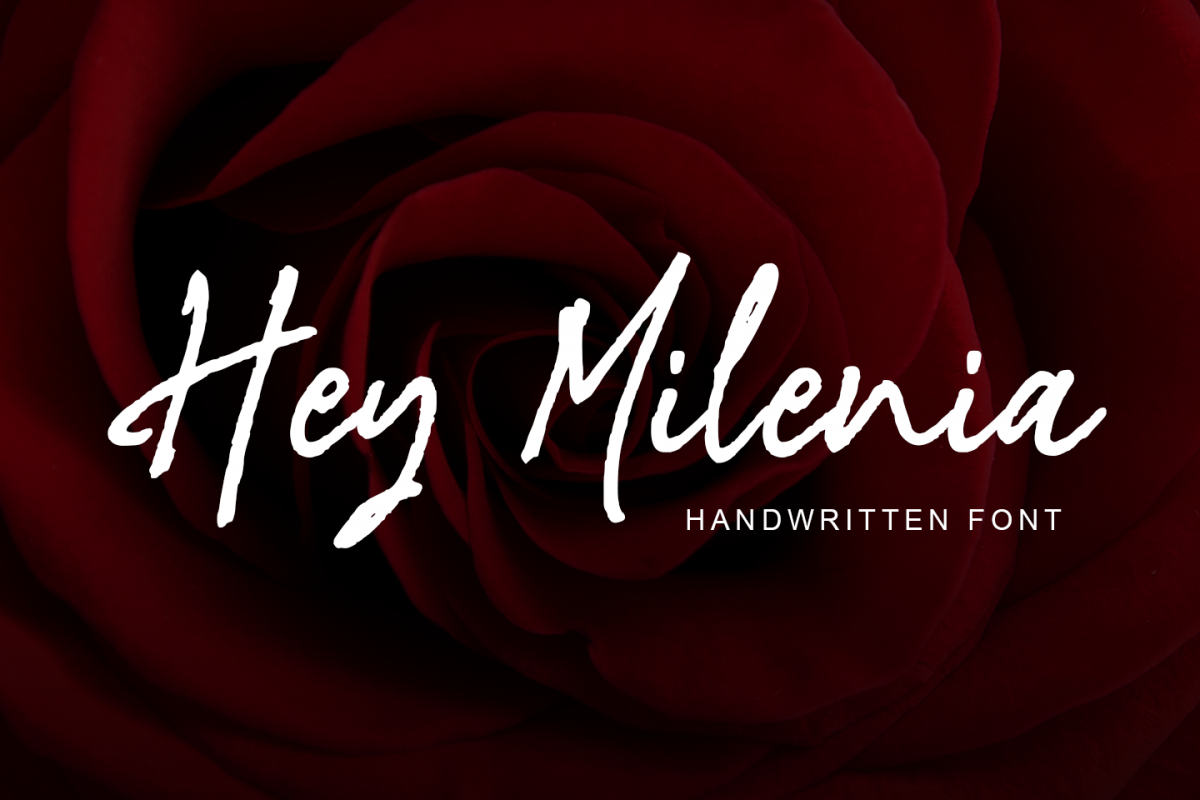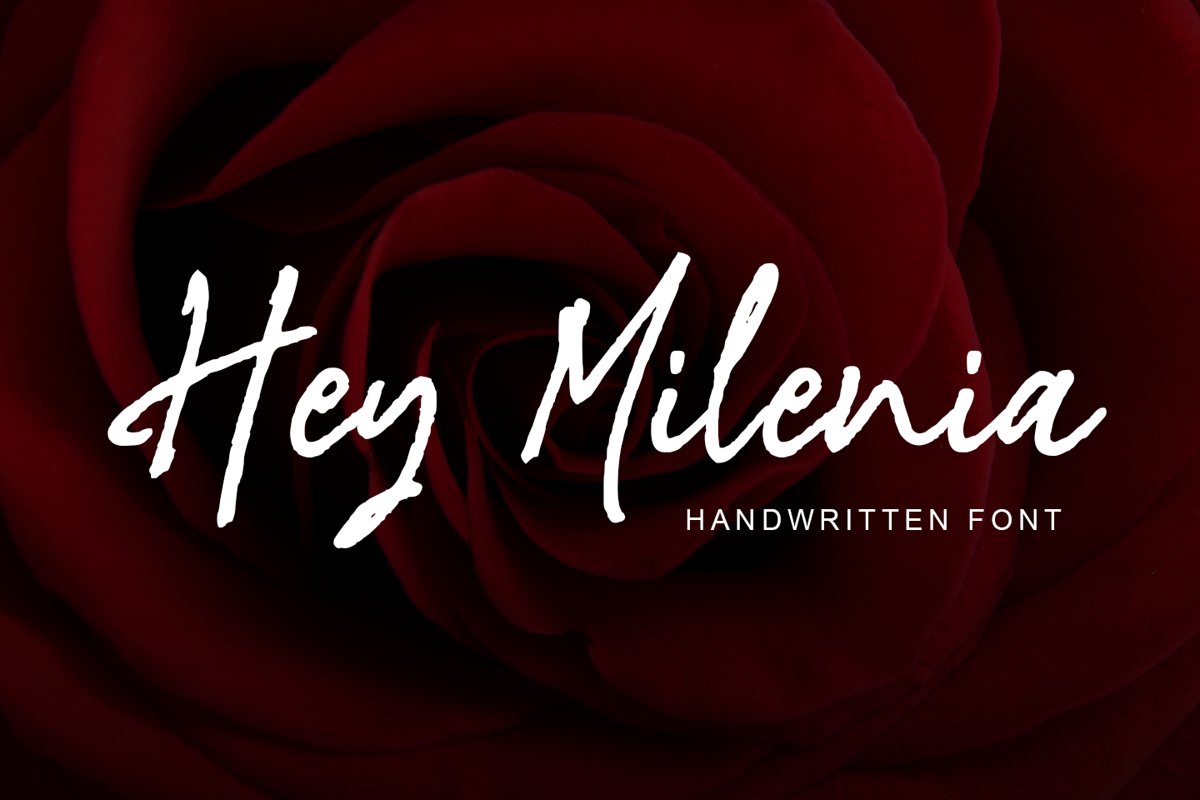
Hey Milenia
"Hey Milenia"
Natural Handwritten Font
This font made with a real premium pen.
It is great for quotes, advertisements, cover books, posters, business cards, and more that need a natural taste.
The product came with 2 styles,
- Regular
- Slant
Some ligatures make this font look naturally.